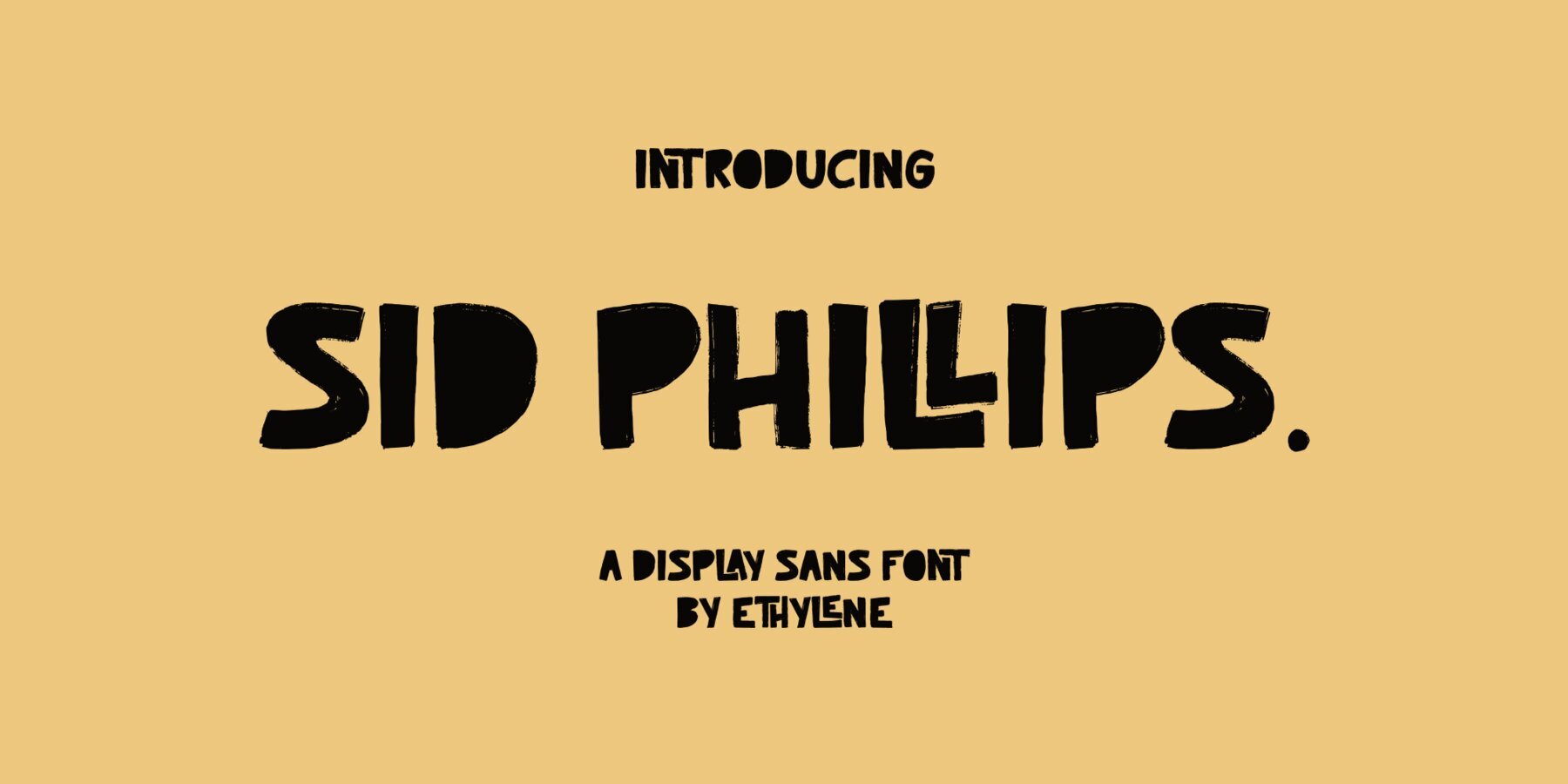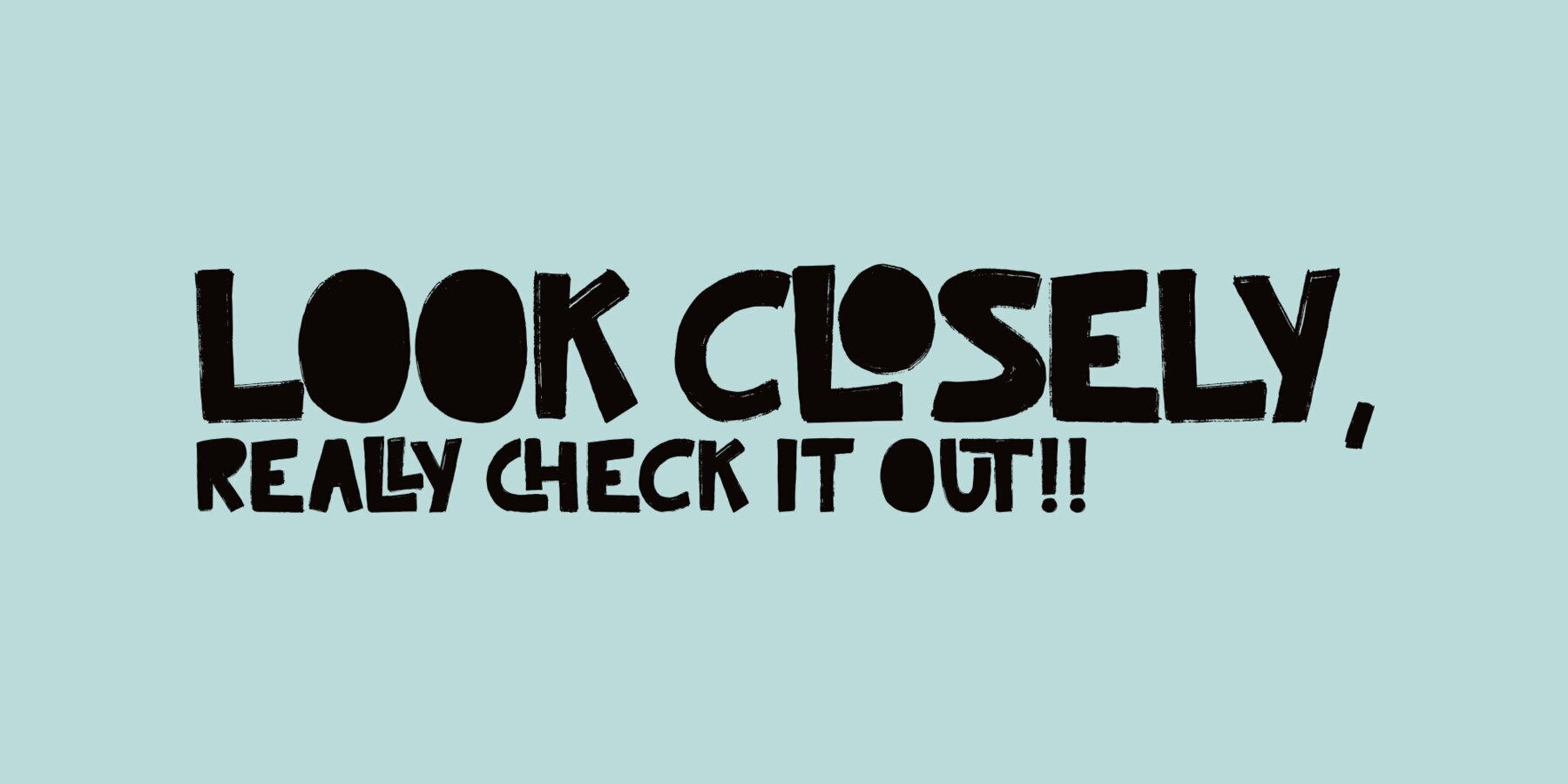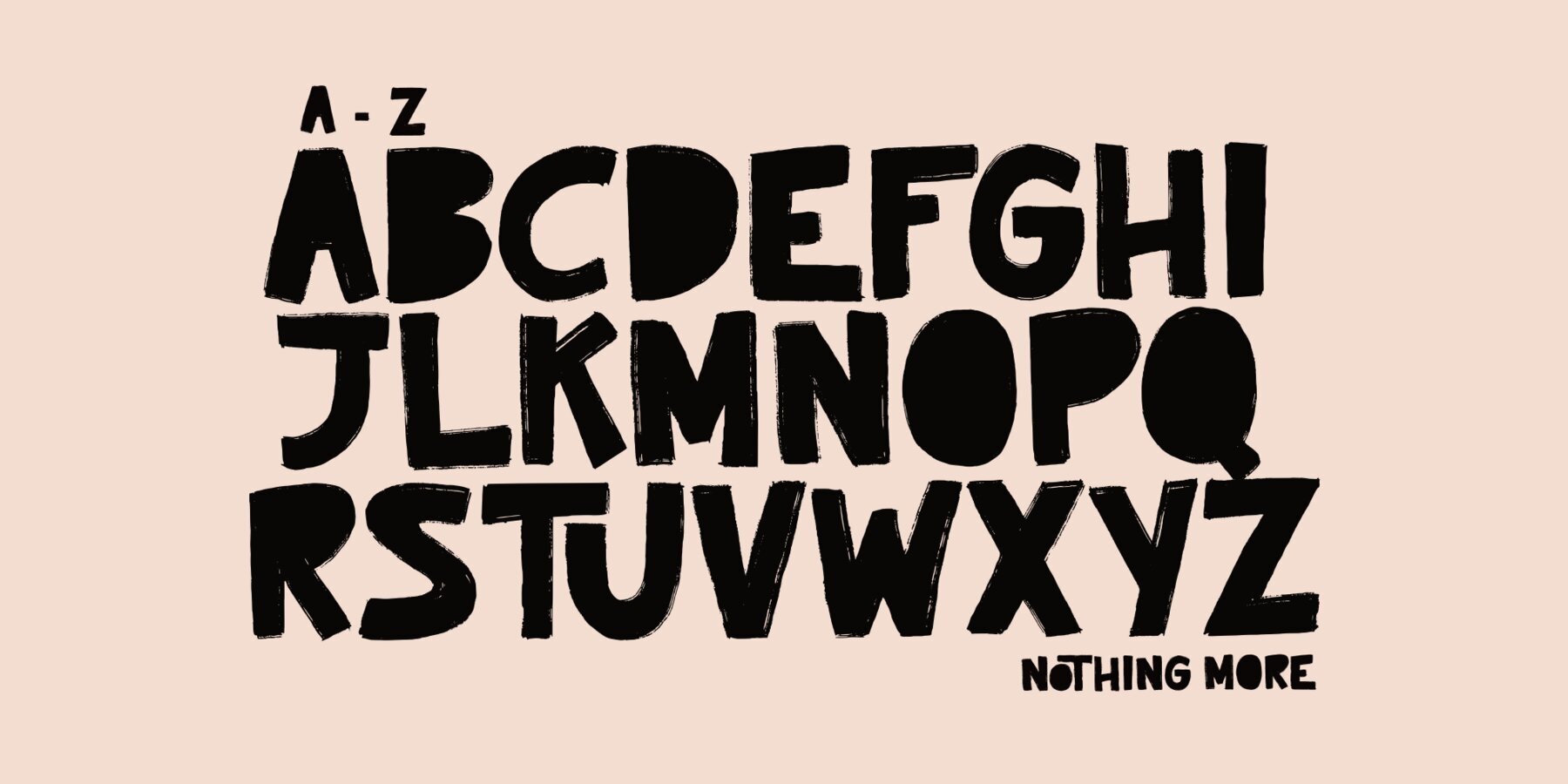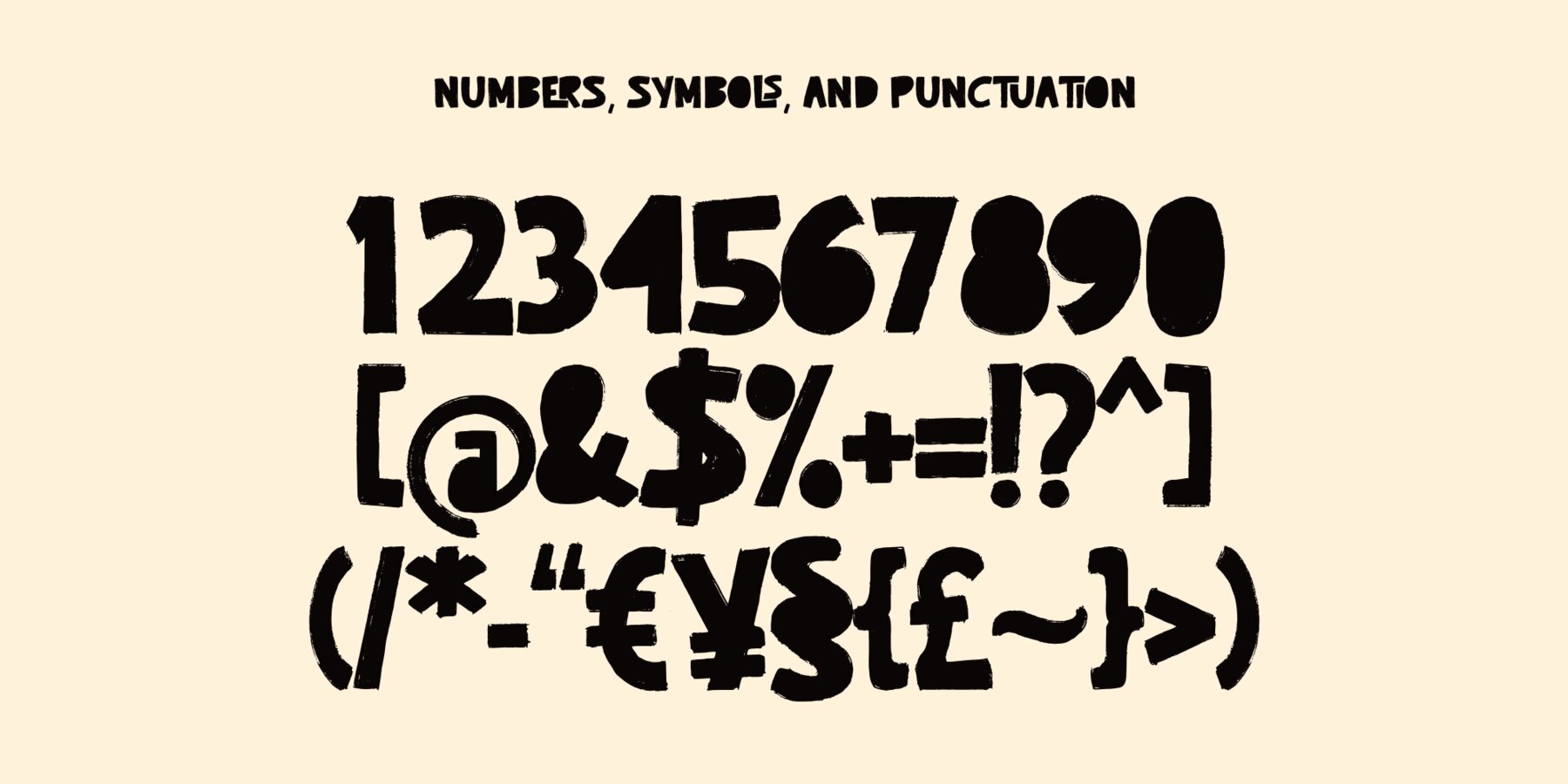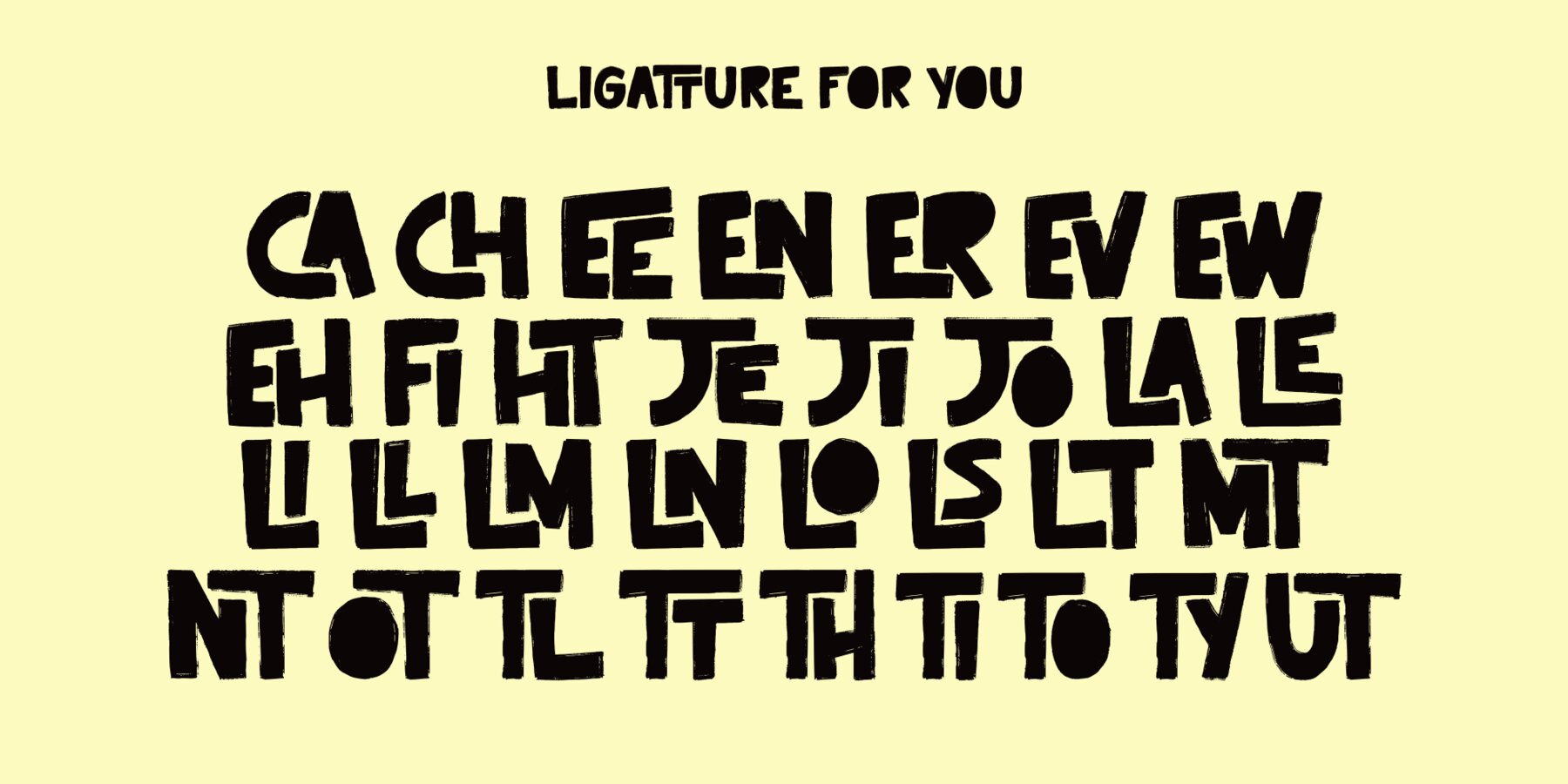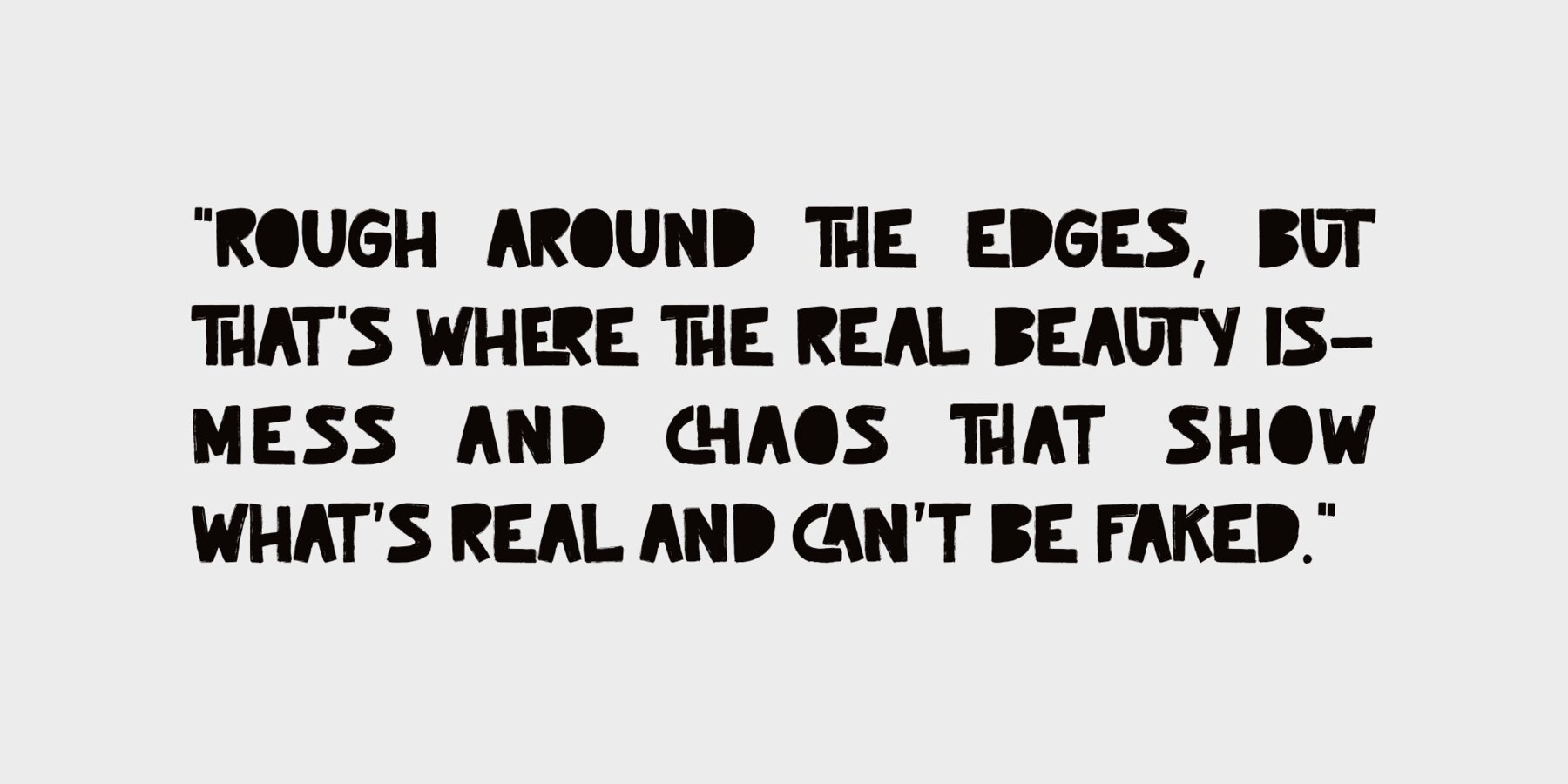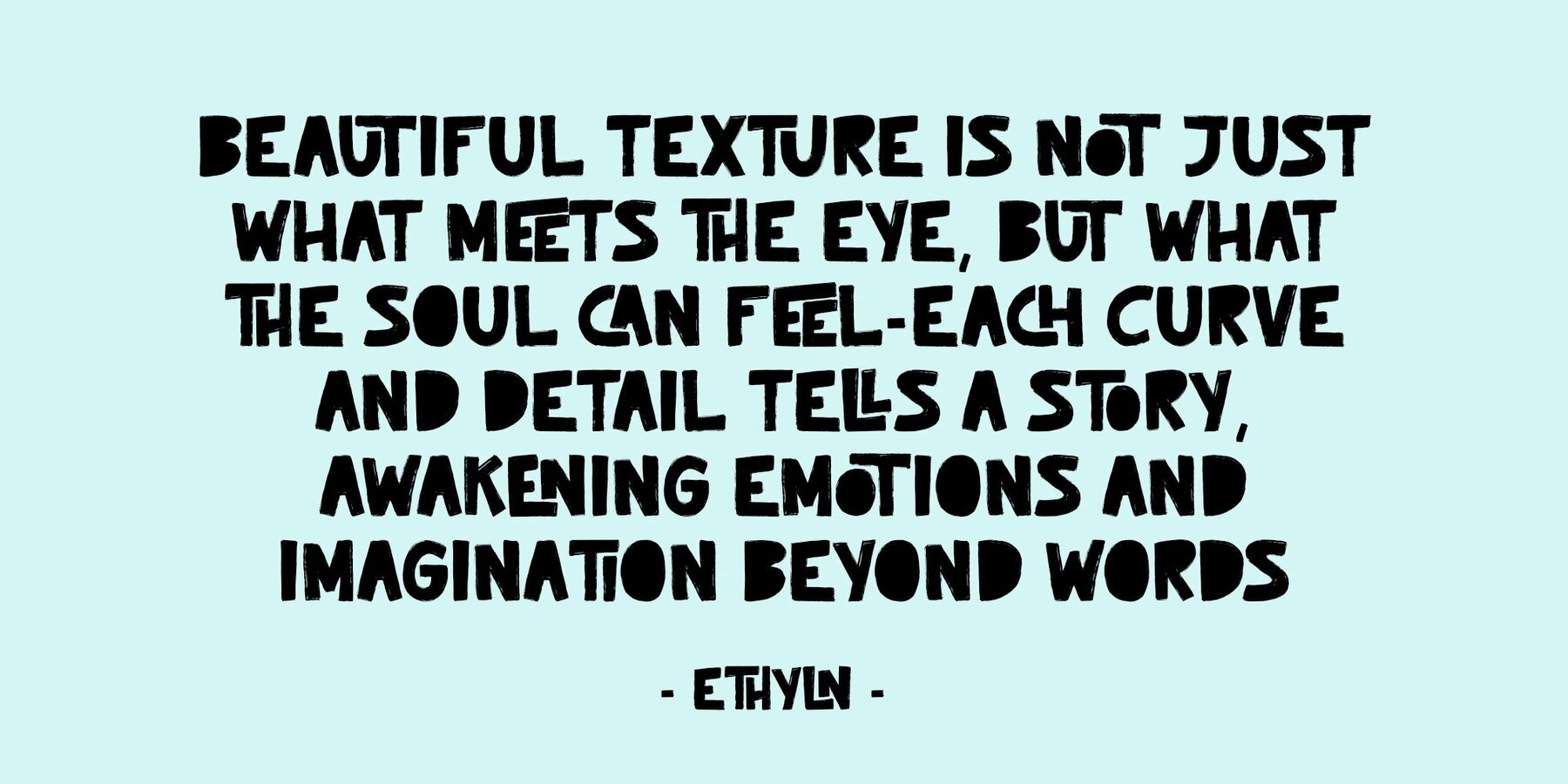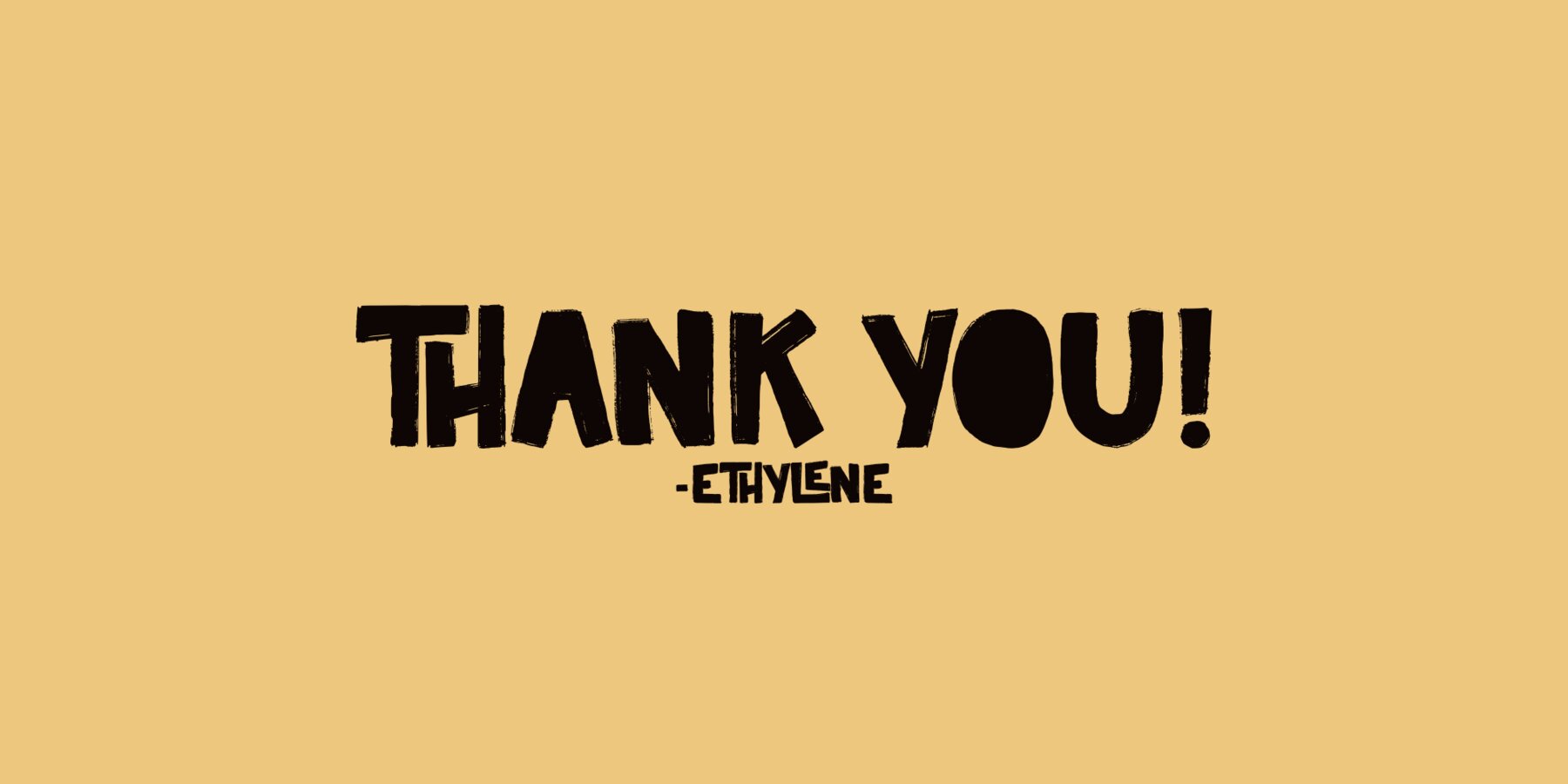
Meet Sid Phillip: The bold, handcrafted brush font that adds personality to every design! With its unique ligatures, Sid Phillip transforms your work into something truly one-of-a-kind. Whether you're designing packaging, t-shirts, social media posts, inspiring quotes, merchandise, YouTube thumbnails, or even children’s books, this font has your back.